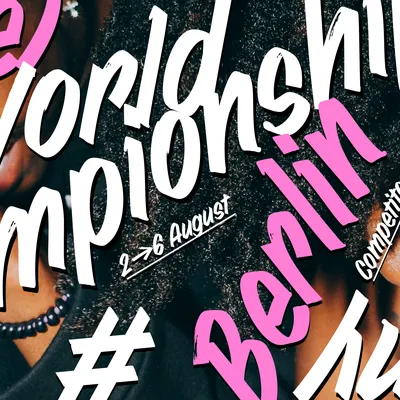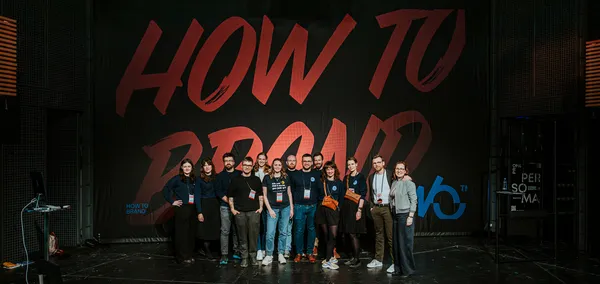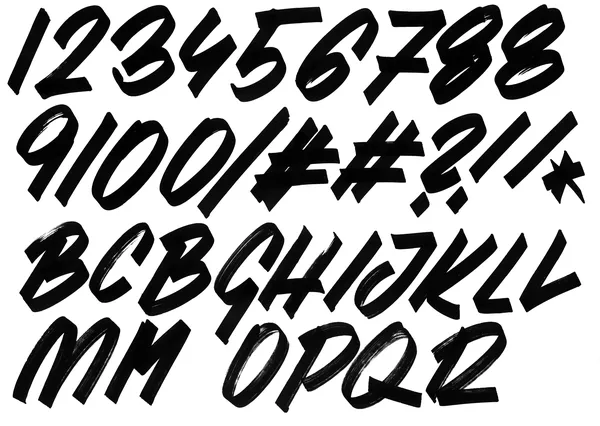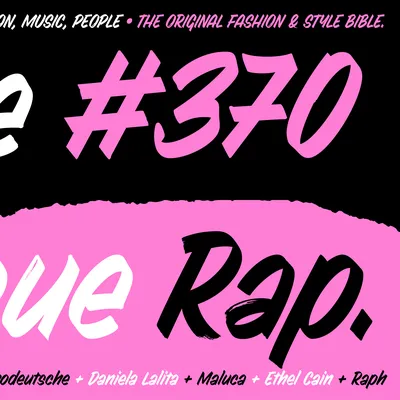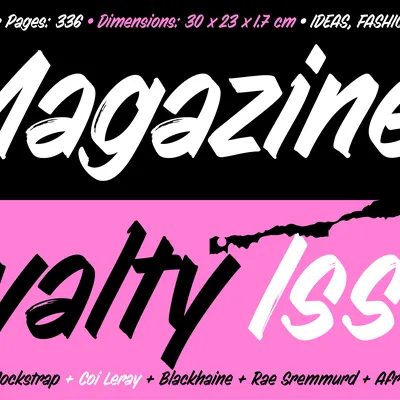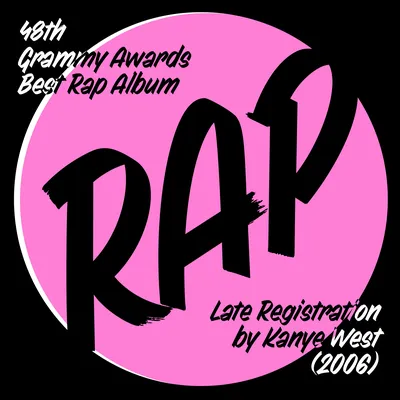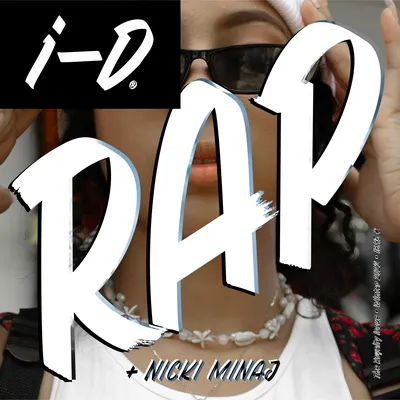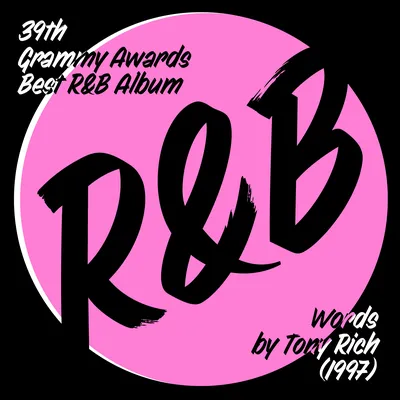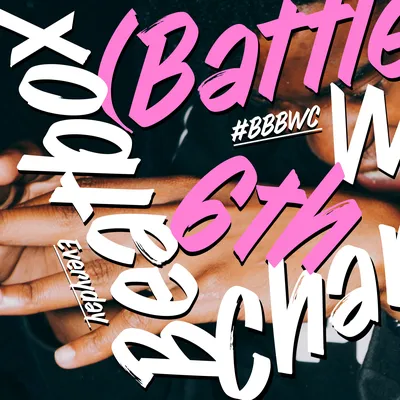
The typeface Everyday was originally created as a lettering for the Czech streetwear brand called Rap Rap (ParPrague). The brief was to tag over a collection of T-shirts, sweatshirts and merch with original graffiti. For sketching, I used alcohol-filled markers, acrylic sprays, wax pens and thick markers. In addition to analogue techniques, I also took an iPad with the ProCreate app and spray brushes from LetterManiac, which look unbelievably natural – just like spray strokes. The result was a series of about twenty letterings that Rap Rap printed with silkscreen on several collections.
The digitisation of handwritten fonts is inherently a sensitive digital reconstruction.
It is not easy to determine the degree of defects, so the typeface is well-drawn but still has believable messiness in some details. Everyday is a reflection of the cheekiness and roughness of dry strokes with a used felt tip marker that occasionally drops ink or doesn't make a perfect stem. You have to push on the marker quite a bit when writing because it's already written out. The speed and haste will also show itself in the slight bending of the stems or its sloppy finishing. Everyday looks better in a tight fit. Characters merge, collide and bind into each other, as they naturally do when handwriting. Lowercases have a higher x-height, which is especially better for writing with a sweeping gesture. I've also added small capitals to the glyph set for titles and headlines, and I hope you'll find them nice as well!
Full Name:PD Everyday
Type design:Petra Dočekalová
Designed:2020
Classification:Script, Graffiti, Display
One of the original rough sketches with Molotow marker, 2017